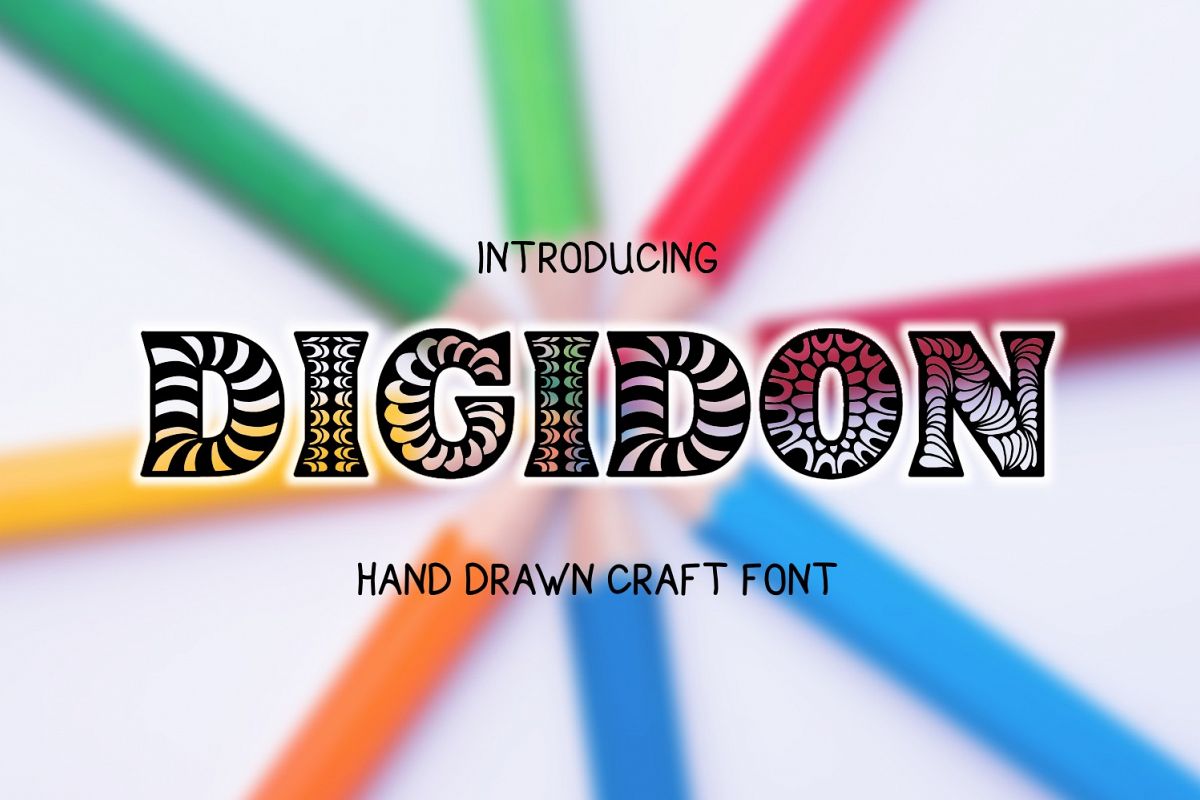
Digidon
Introducing Digidon - a great font for crafts
Digidon is great for monograms, logos, brandings, embroidery designs, book covers, titling, signage, poster, flyers, calendars, headlines, businnes cards and other printed stationeries.
Digidon